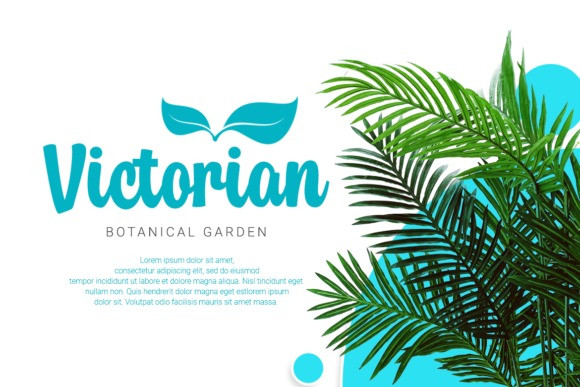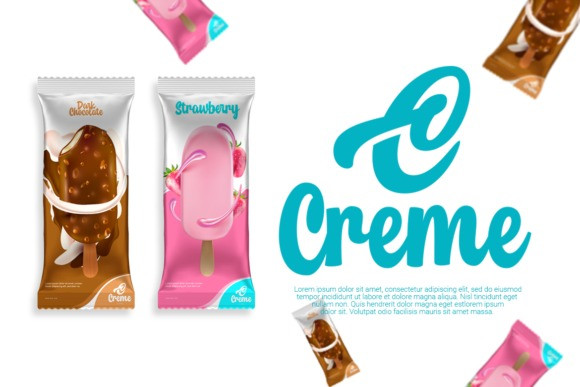
Chilcilla Font
Chilcilla Font is a script font with modern look design styles. These lovely fonts would be perfect to combine in your design. Brand new stylish textured fonts and make it easy for made logotype hand-lettering style. It will be great for Commercial Branding, Logotypes, Posters, Digital Lettering Arts, Clean Design, Branding Design, Sign, Merchandise, and Social Media Posts.